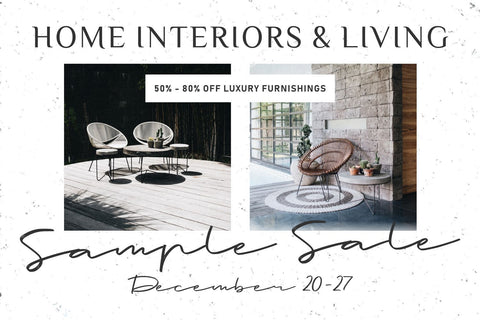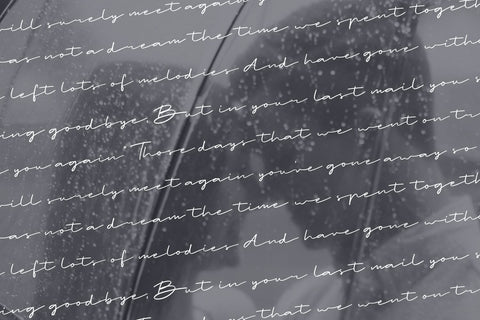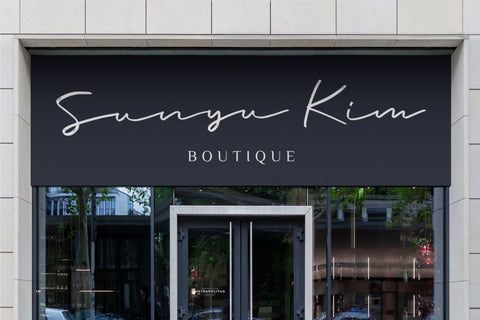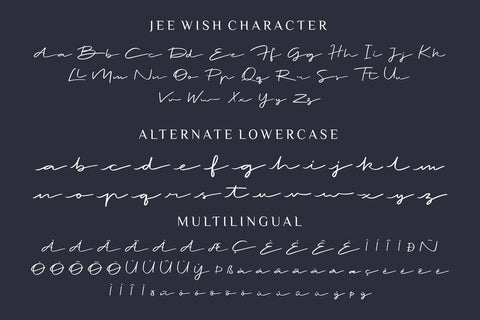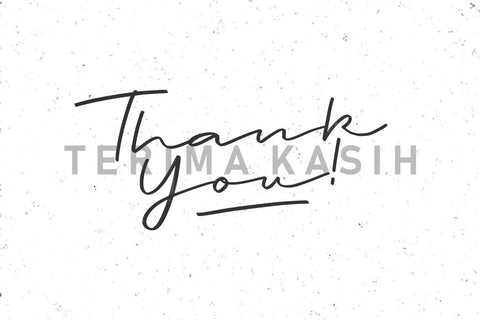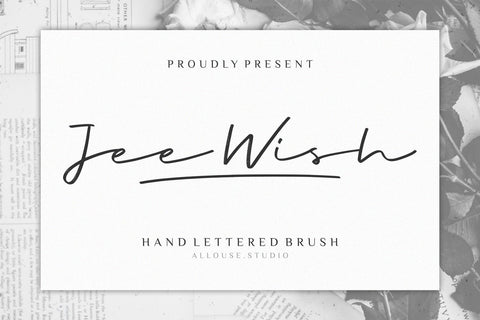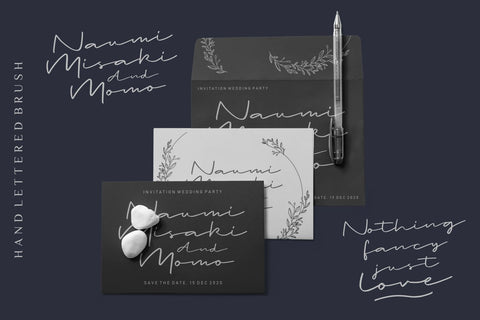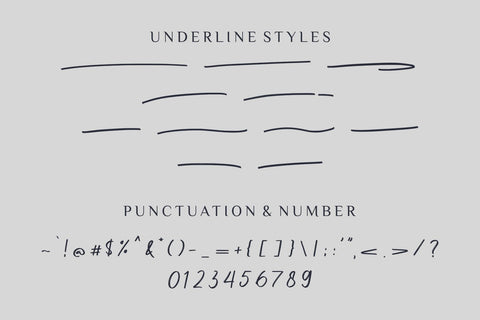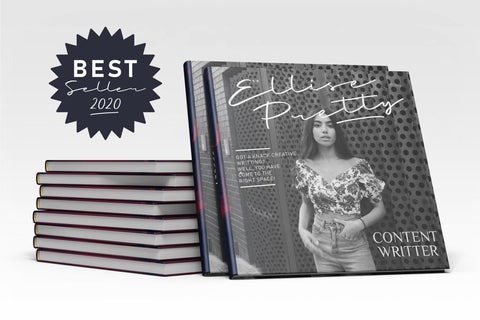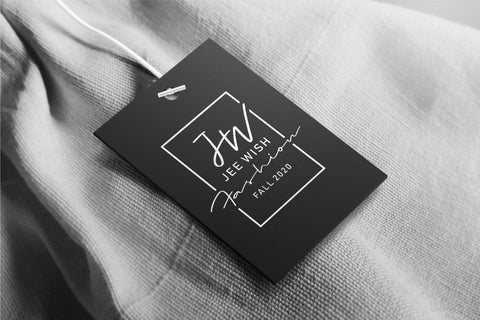
Jee Wish - Handlettered Brush Font
Proudly Present, Jee Wish.
Jee Wish is a Handlettered Brush Font.
Jee Wish is perfect for product packaging, branding project, megazine, social media, wedding, or just used to express words above the background.